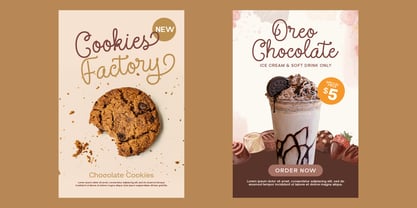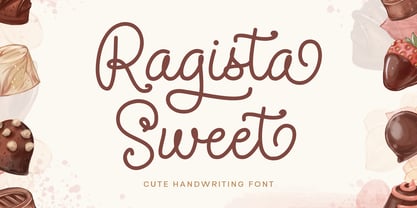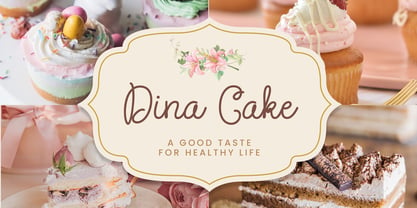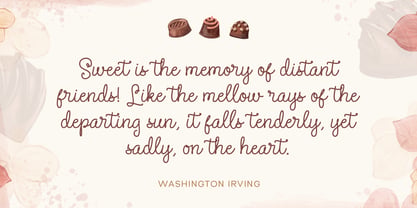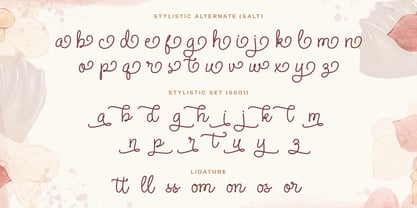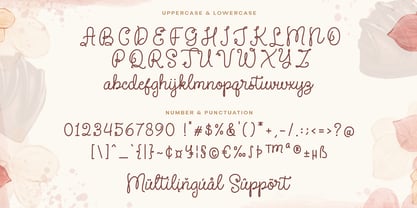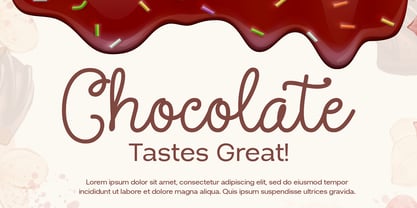
Ragista Sweet
by Siwox Studios
The Ragista Sweet Font Family was designed by Rizaldi Wandani and published by Siwox Studios. Ragista Sweet contains 1 styles. More about this family
Ragista Sweet is a cute monoline script font. The simplicity and elegance of this font ensures it stands out in logos, labels, and promotional materials, adding a touch of sweetness and ease of understanding to any design. With a modern yet timeless feel, Ragista Sweet effectively conveys a sense of love and care, making it perfect for brands that focus on Food & Beverage products and also suitable for greeting card designs.
Designers: Rizaldi Wandani
Foundry: Siwox Studios